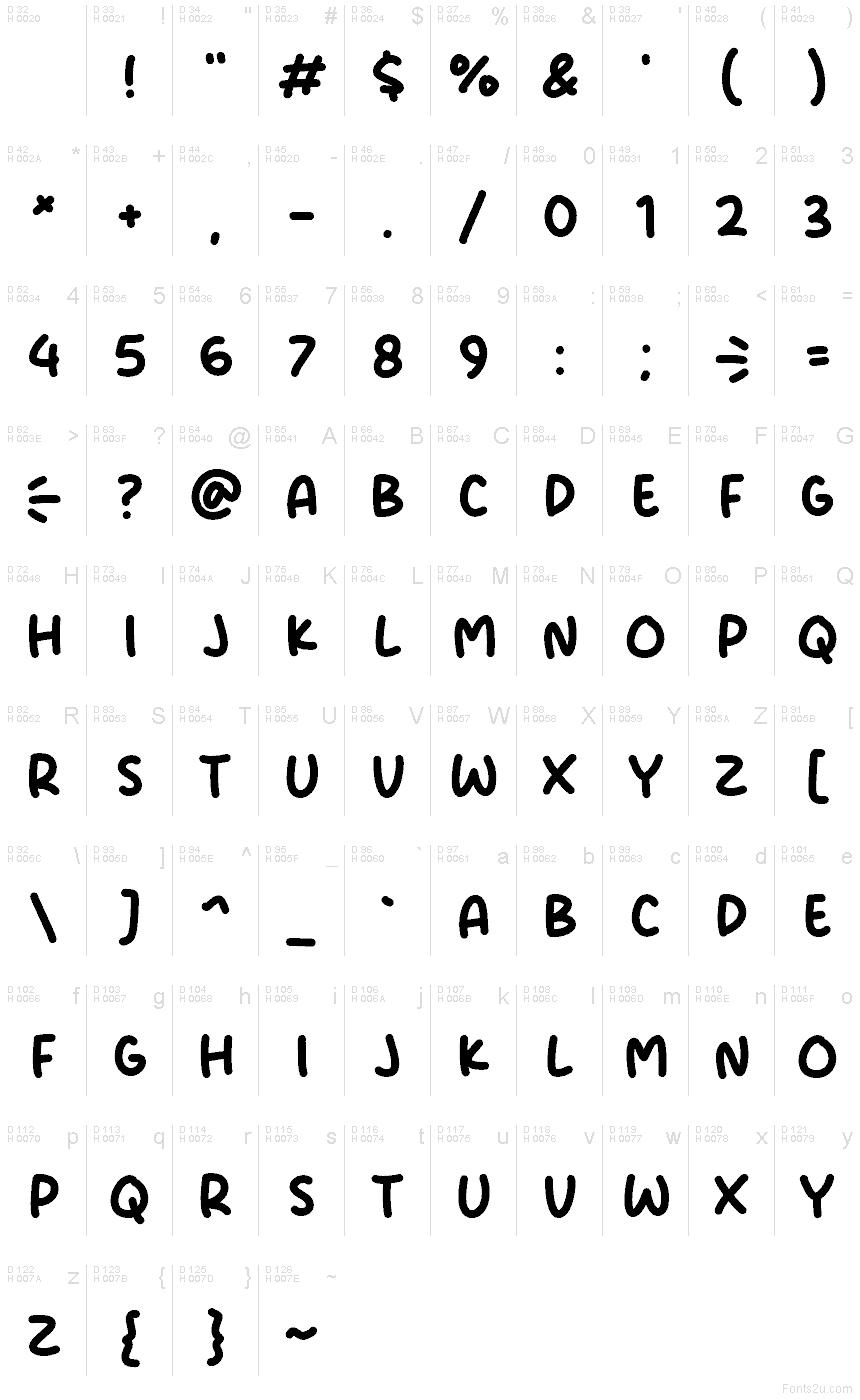
Apple Baker
Apple Baker font by MJType is a bold handwritten typeface with an approachable, casual appearance. Each character has rounded forms with visible ink mistakes expected from fast hand-motions on paper. The modern feel of this font makes it suitable for branding projects and versatile in a variety of creative contexts.